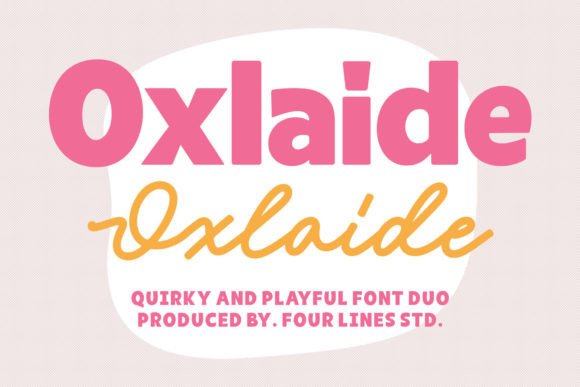
Feast your eyes on Oxlaide, the remarkable Display font forged by Fourlines.design. With its striking and playful nature, it is designed to captivate your audience and inject a burst of whimsy into your creative projects.
Adorned with curvaceous corners and a playful disposition, Oxlaide is a perfect companion for various creative pursuits. Whether you seek to craft captivating posters, vibrant banners, striking logos, or any project craving attention, Oxlaide stands ready to leave an indelible mark.
Its robust and thick lines exude a commanding presence, ensuring your messages stand out amidst the digital clamor, demanding attention with authority.
Oxlaide, however, is more than just a solitary force. It's a cooperative player, harmonizing effortlessly with handwritten fonts, fostering a beautiful equilibrium between structured elegance and unbridled personality within your designs.
Dazzle your audience and elevate your designs to new heights with Oxlaide, the captivating Display font. Embrace its charm and unlock the gateway to countless creative possibilities.